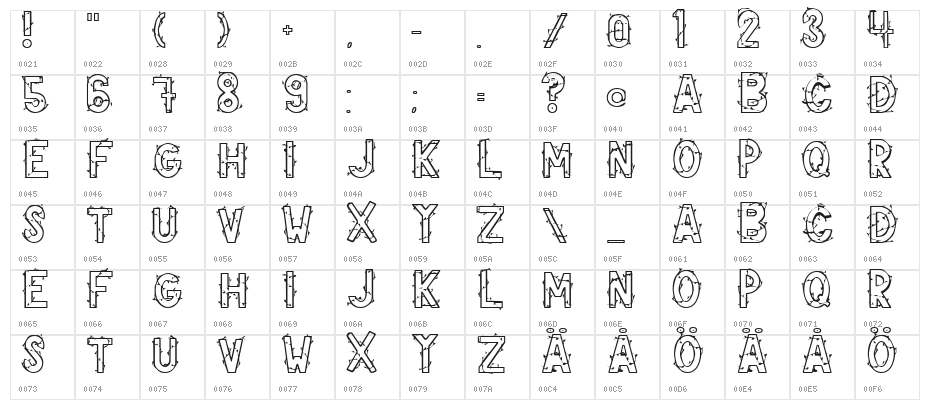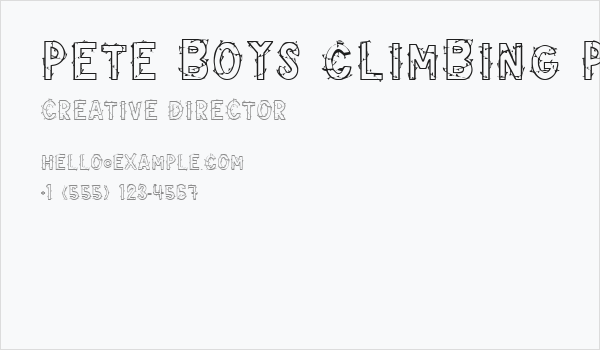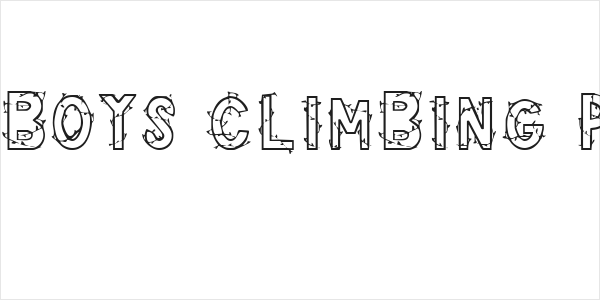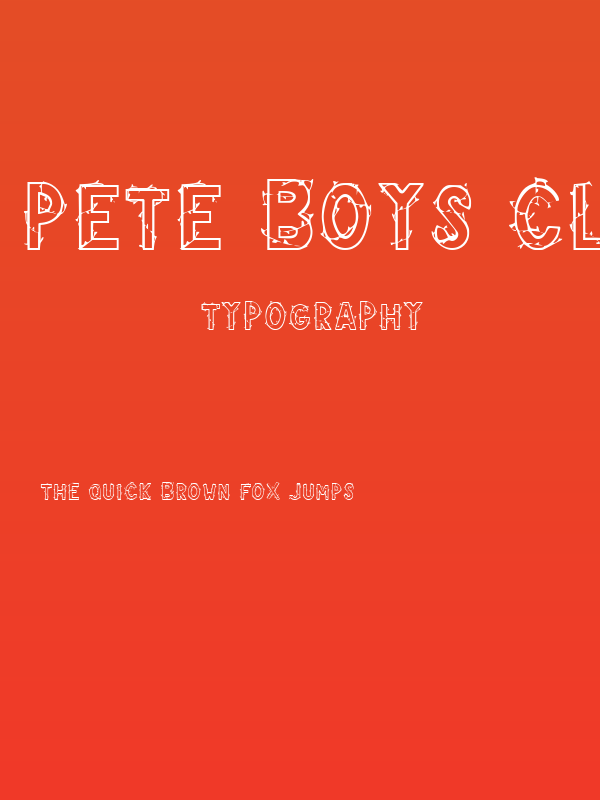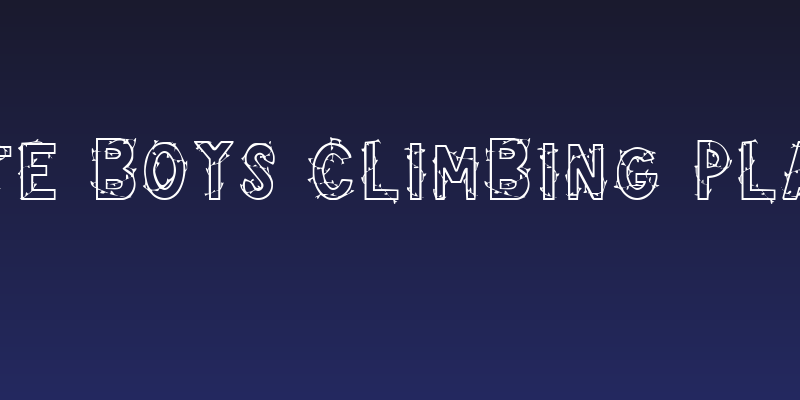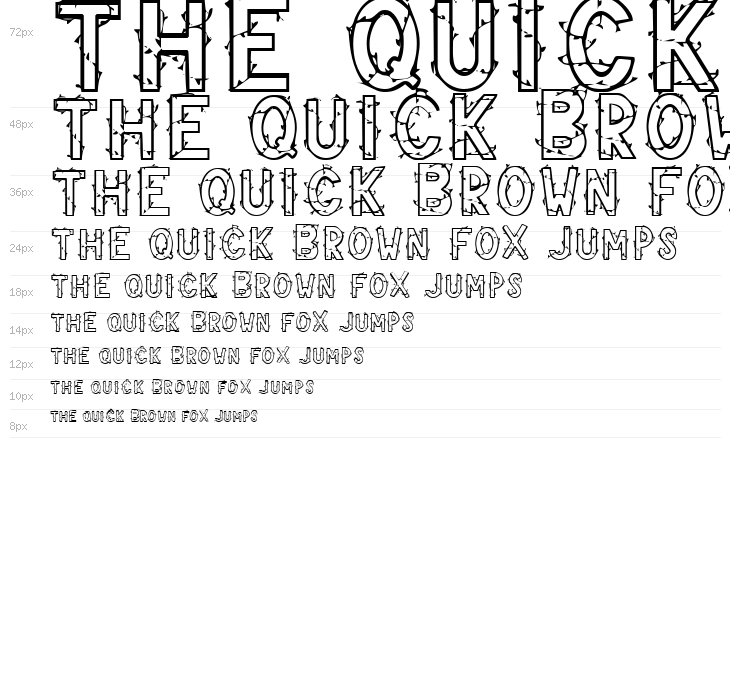
Pete Boys Climbing Plant Font
Pete Boys Climbing Plant Description
This font features a unique and playful design, incorporating elements that resemble climbing plants entwined around each character. The letters are bold and outlined, with decorative vine-like details that add a whimsical touch. Each character maintains a consistent structure, ensuring readability while offering an artistic flair. The font includes both uppercase and lowercase letters, numerals, and a selection of special characters, all adorned with the same intricate plant motif. This design is perfect for projects that require a nature-inspired or playful aesthetic.
| Proposed Projects | Ideal for eco-friendly branding, children's book covers, garden-themed invitations, or any project seeking a natural, whimsical touch. |